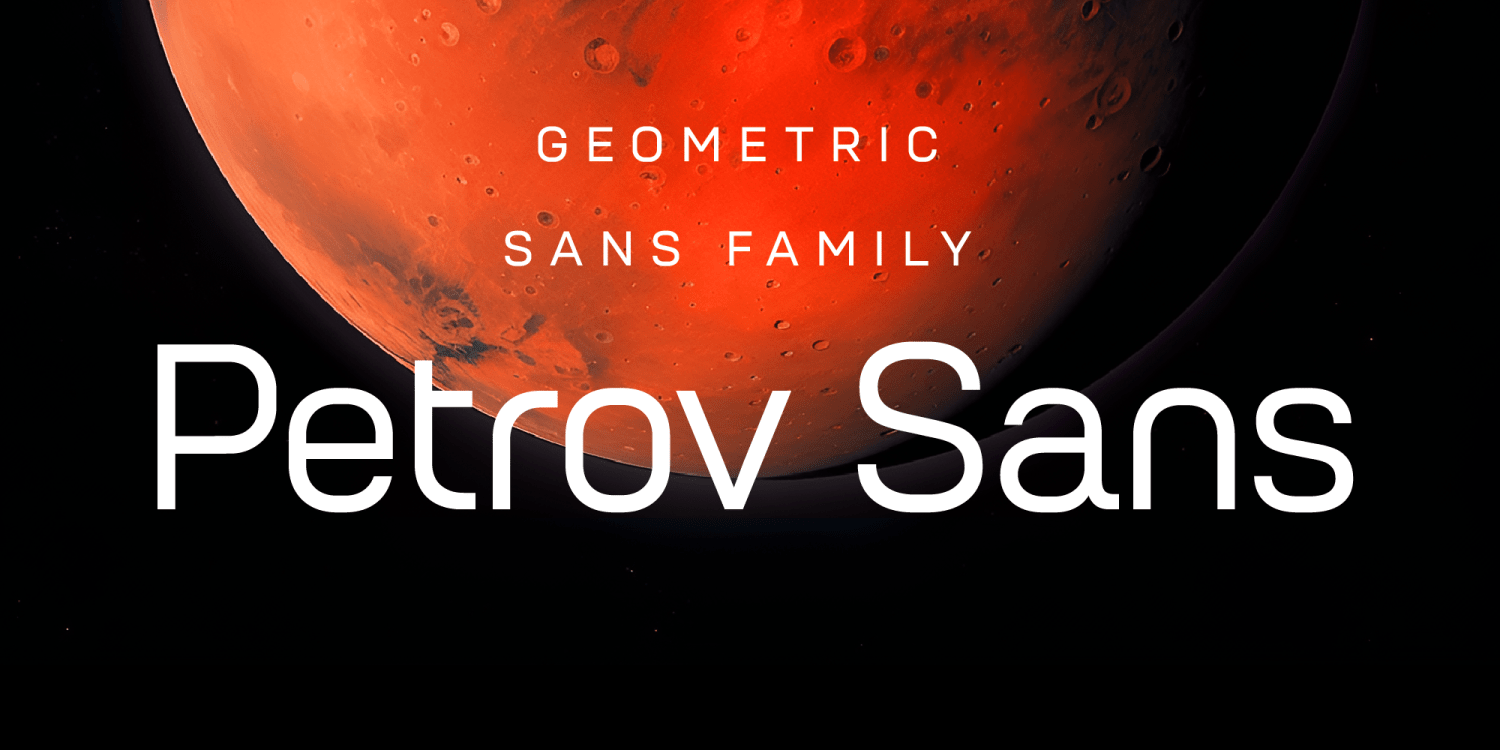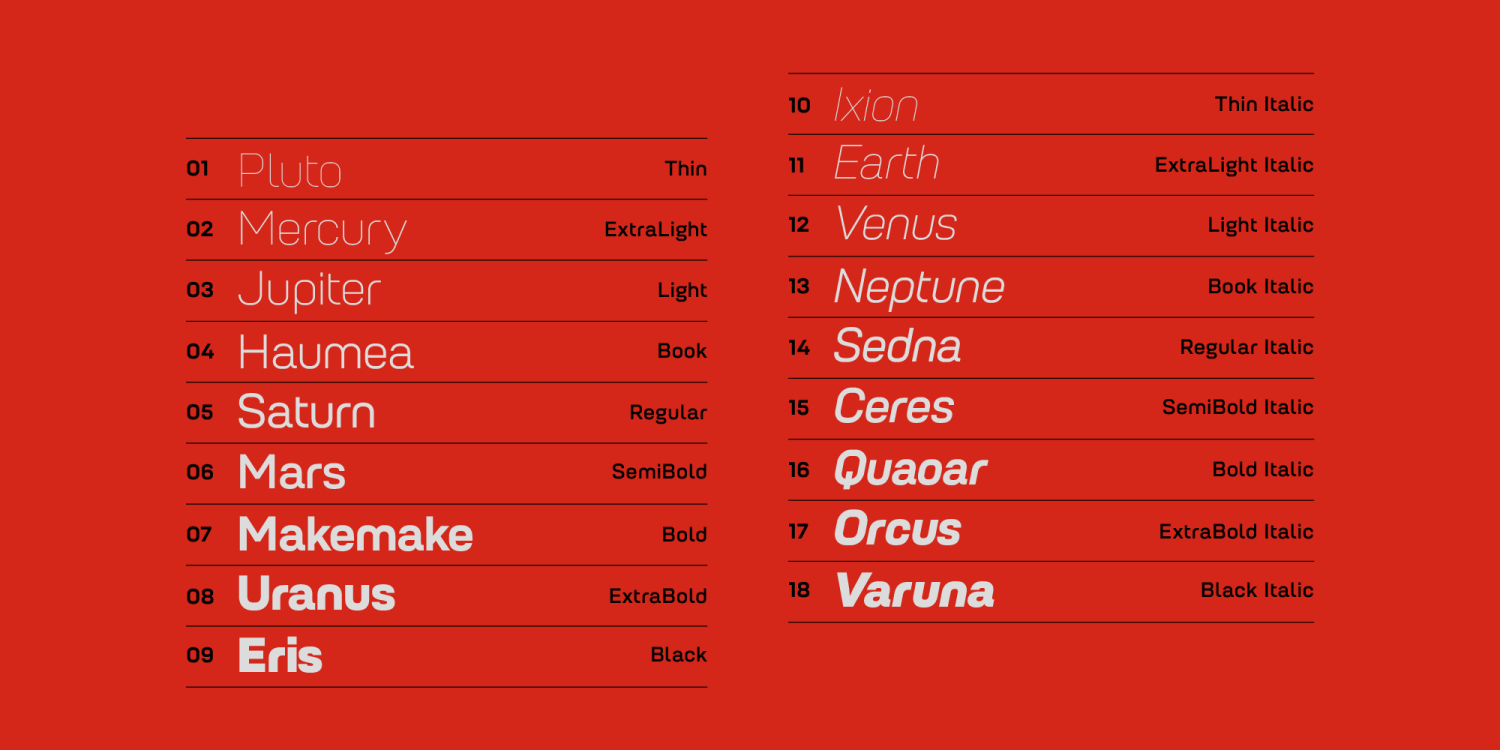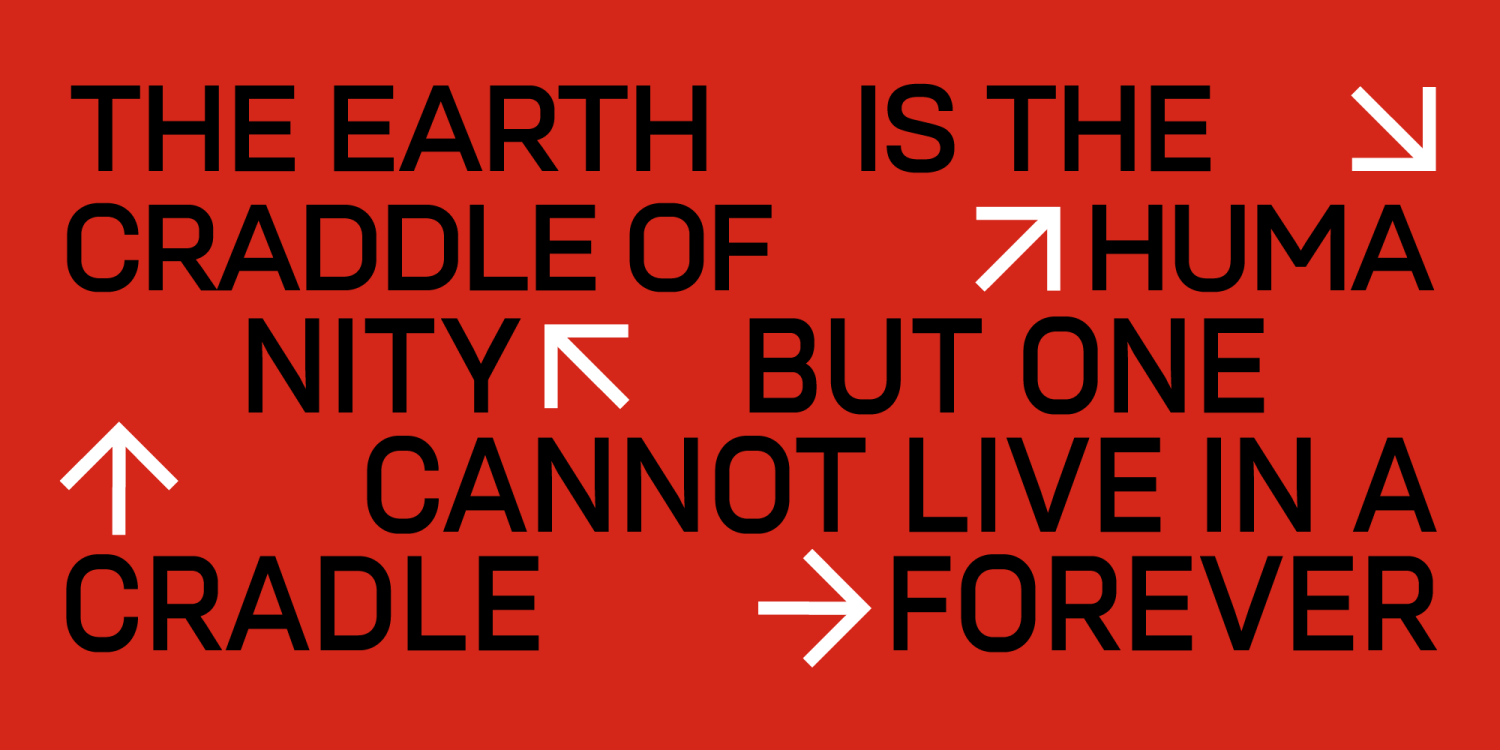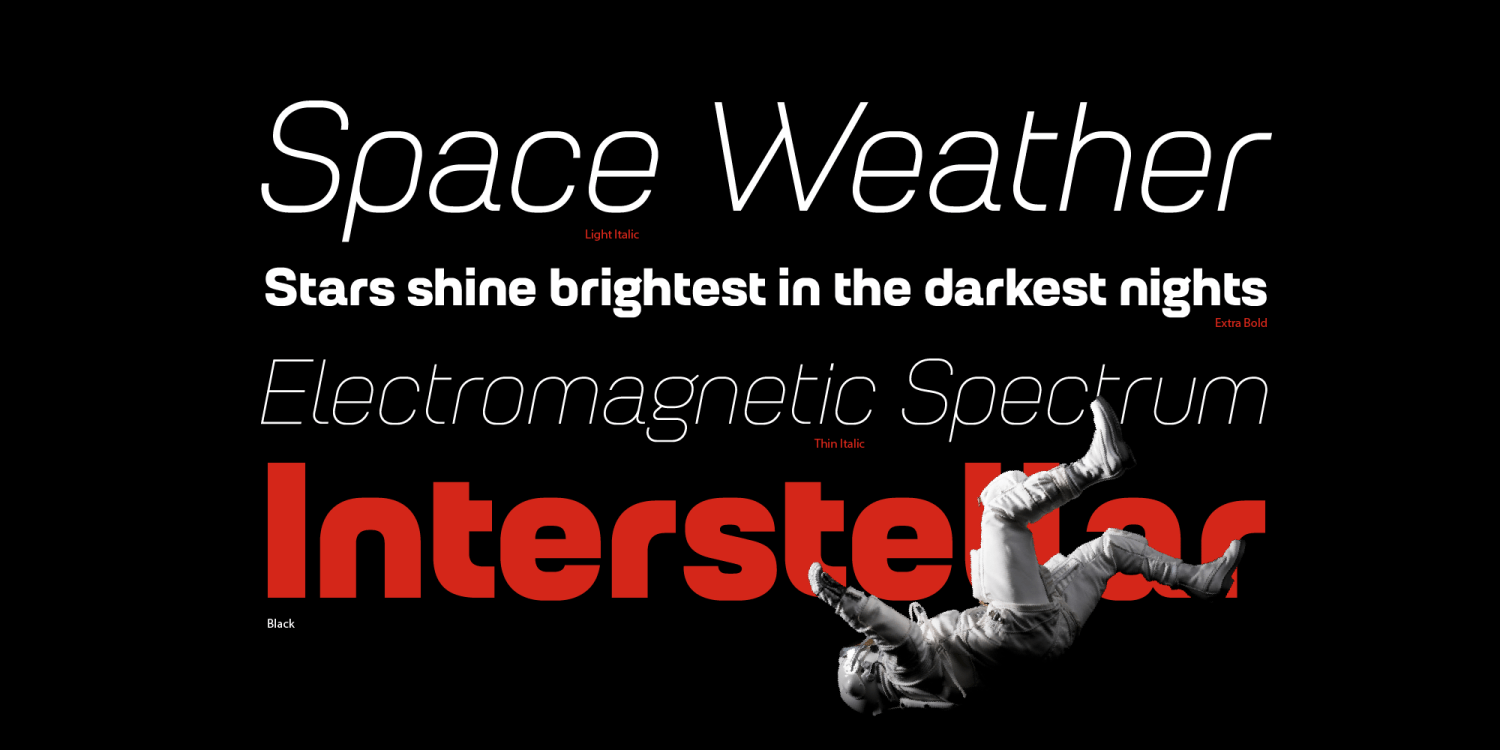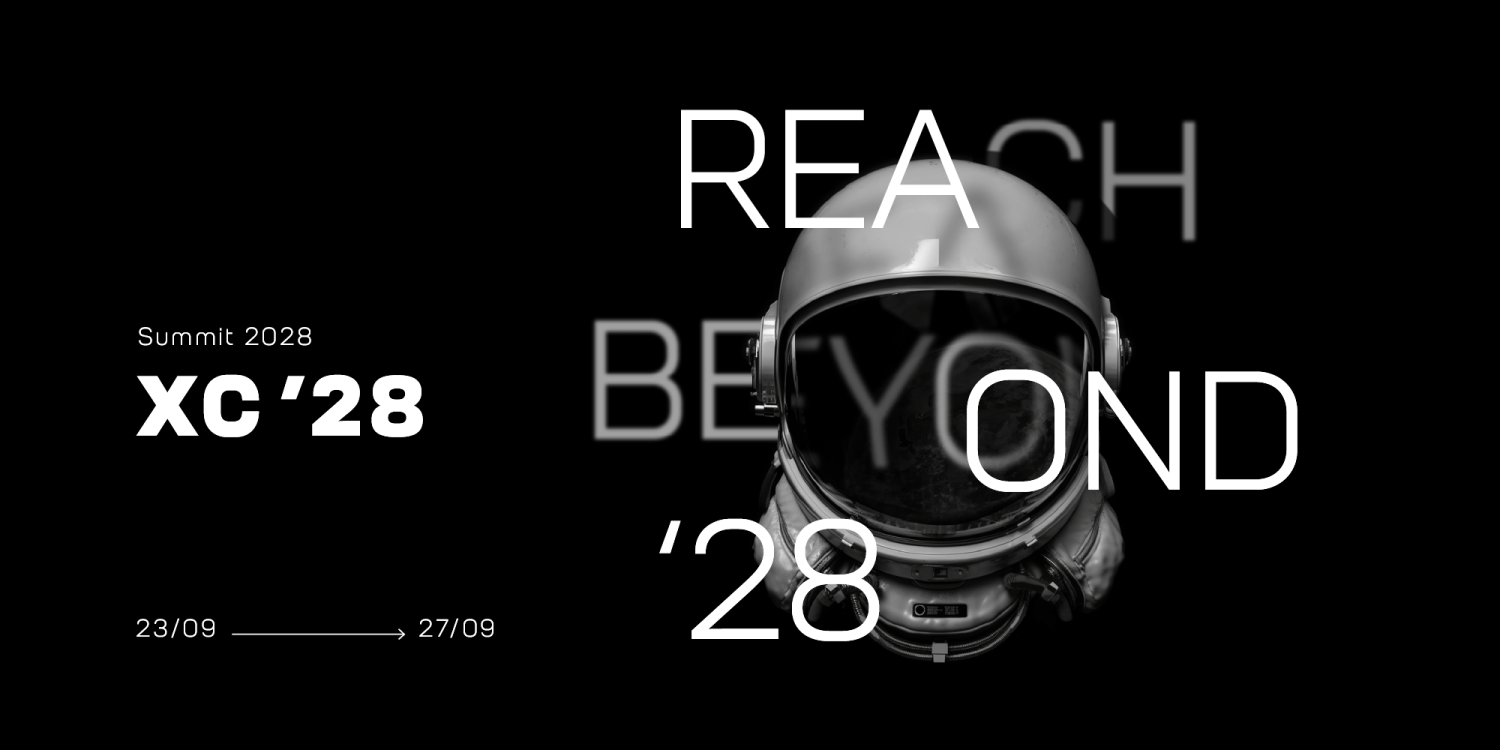
Petrov Sans
Petrov Sans is a futuristic geometric sans-serif designed by Asen Petrov, refined by Stefan Yatanski, and released by Fontfabric in January 2024. This family offers a robust toolkit of 9 upright weights and 9 matching italics, delivering geometric precision and modern character. Whether for bold headlines or crisp body text, Petrov Sans is built to impress in every context, uniting clarity and style for today’s typographic needs.
Why Choose Petrov Sans?
This font's consistent contemporary geometry across a broad weight range strikes the perfect balance between contrast and readability, making it an excellent choice for designers seeking a versatile geometric sans for multi-purpose applications.
With a total of 18 styles (plus a variable font), advanced OpenType features, and extensive multilingual support, Petrov Sans ensures versatility and high-quality typography for every project. Download Petrov Sans today!